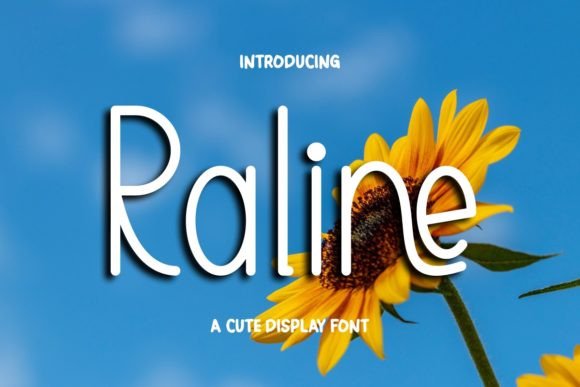
Journey into the realm of boundless creativity with Raline Font, a captivating display font crafted with meticulous attention to detail by Pian45. This exquisite font family exudes a captivating charm and irresistible cuteness, promising to infuse your design projects with an enchanting and cheerful vibe.
Raline Font's delightful letterforms, adorned with soft, rounded edges, dance across your screen like a symphony of joy. Its playful and charismatic nature lends itself perfectly to a diverse spectrum of creative endeavors, effortlessly capturing the essence of warmth and friendliness.
Imagine your flyers radiating with jubilant energy, brimming with Raline Font's infectious charm. Its captivating presence will draw eyes like magnets, imbuing your messages with an irresistible allure that compels attention. Let Raline Font elevate your flyers to new heights of visual delight, transforming them into captivating works of art that resonate with your audience.
Unleash your imagination and explore the limitless possibilities that await with Raline Font. Embark on a creative adventure where every project blossoms into a masterpiece, infused with the magic of this enchanting display font. Experience the joy of crafting designs that captivate hearts and leave a lasting impression. Embrace the playful spirit of Raline Font and watch your creative visions soar to new heights.